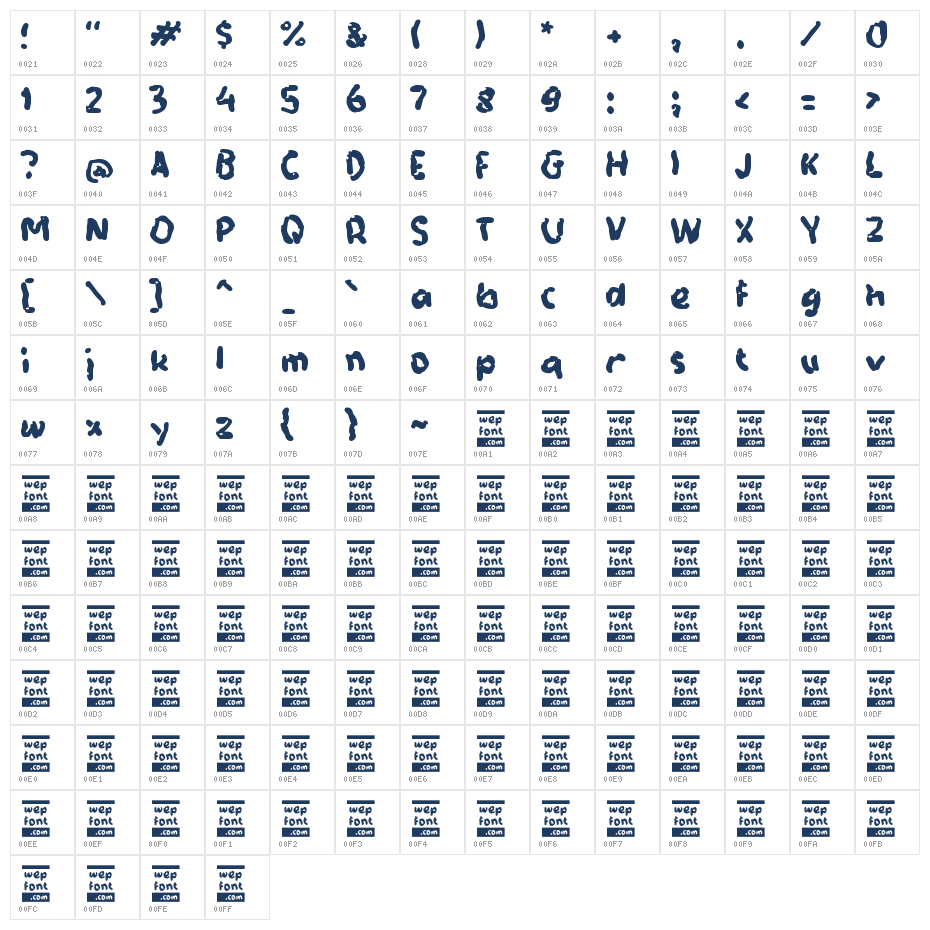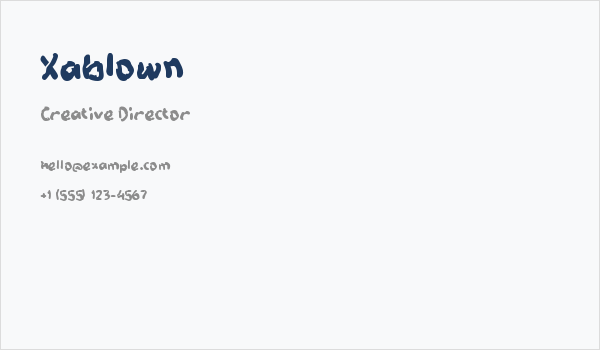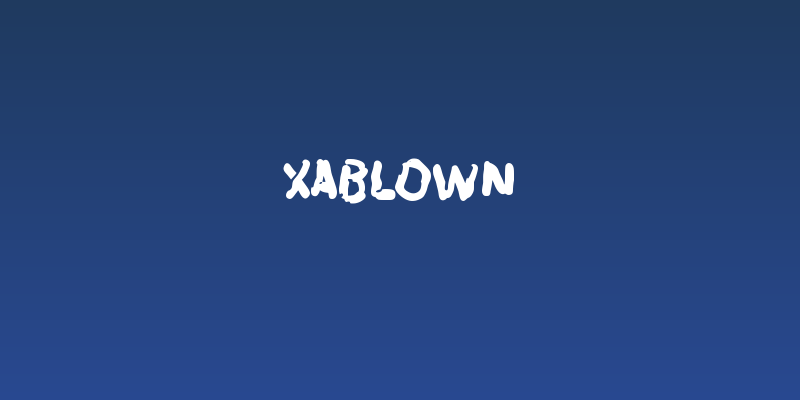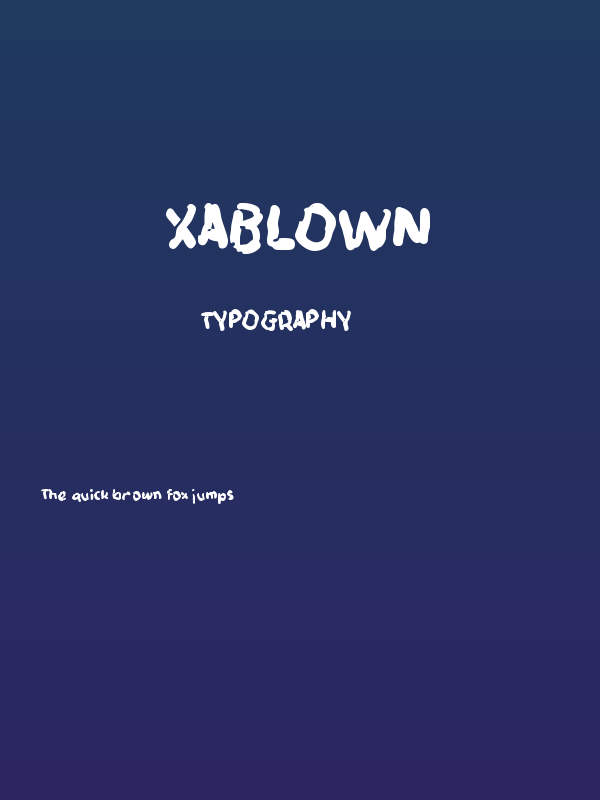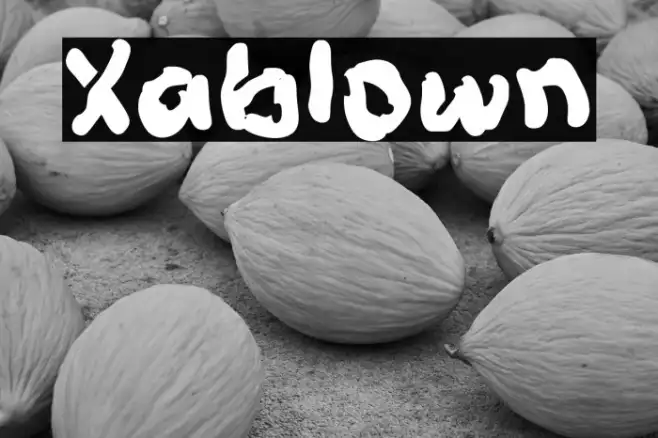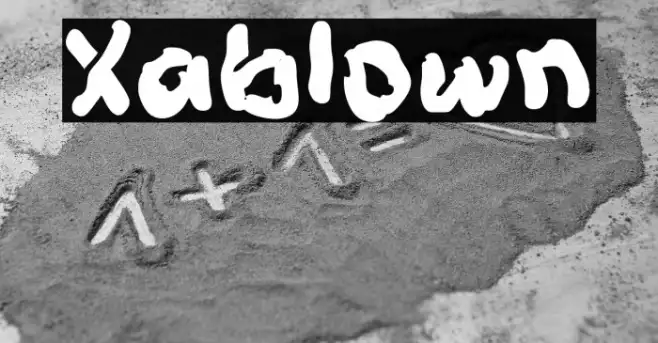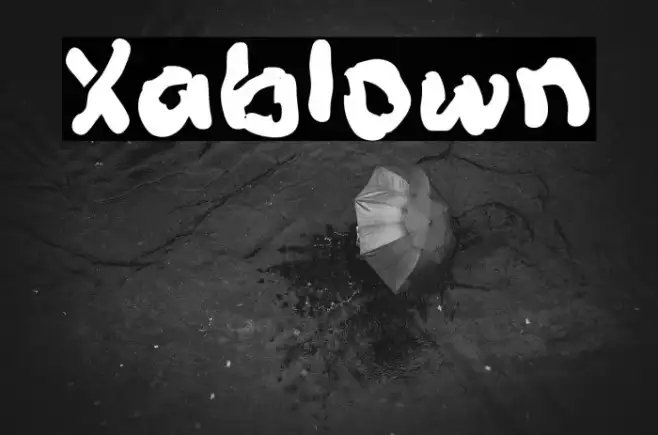
Xablown Font
Xablown Description
A bold, playful, and irregular handwritten style font with a casual, brush-like appearance.
| Overall Style | Casual, Playful, Handcrafted |
| Use Case | Headlines, Logos, Posters, Social media graphics |